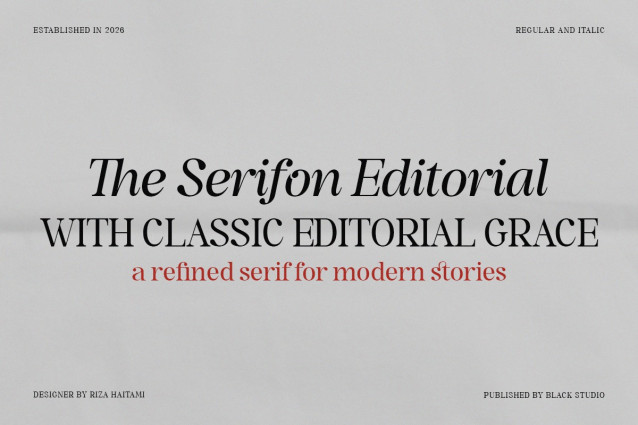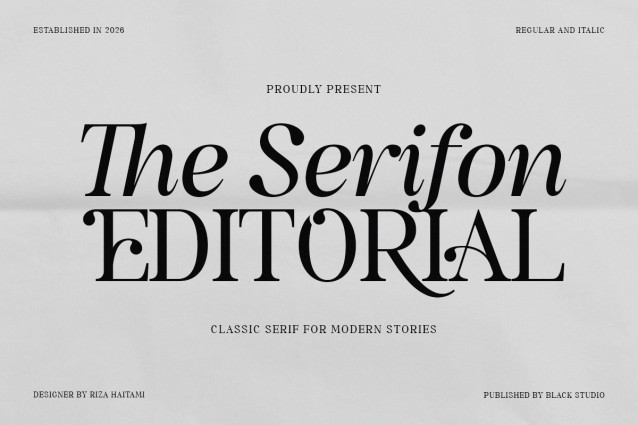
The Serifon Editorial Font
The Serifon Editorial Font is a classic serif typeface from Black Studio, crafted for modern editorial storytelling with elegant, high-contrast letterforms and refined details. It blends the charm of traditional print with a contemporary attitude, making it perfect for magazine headlines, book layouts, and sophisticated branding that needs a dramatic yet readable voice.​
With the tagline “Classic Serif for Modern Stories,” The Serifon Editorial brings a timeless, luxurious feel to both print and digital projects. Its balanced x-height, graceful curves, and expressive ligatures are designed to create attention-grabbing titles while still supporting longer narrative content with clarity and style.